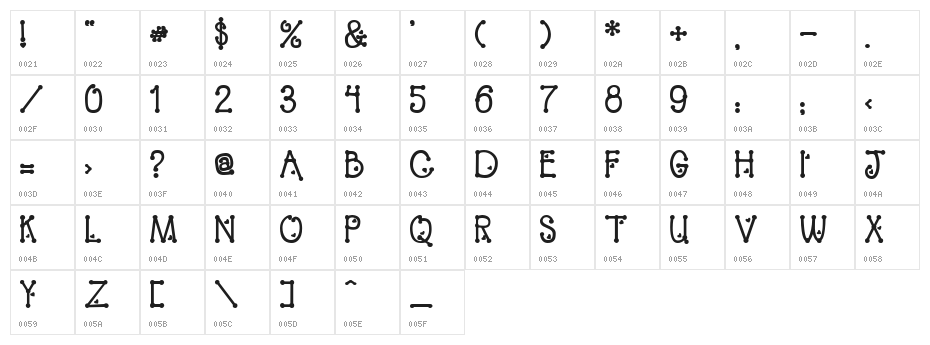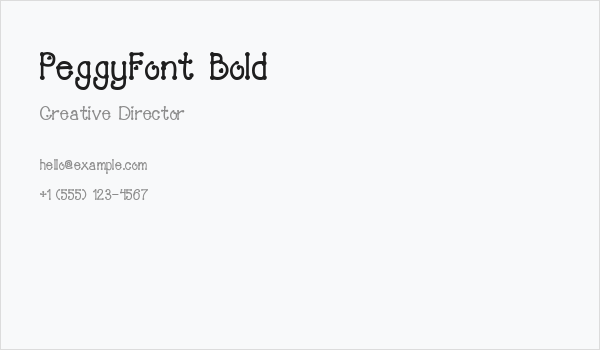
PeggyFont Bold Font
PeggyFont Bold Description
This font features a playful and whimsical design, characterized by its bold and rounded letterforms. Each character is adorned with small, circular embellishments at the ends of strokes, giving it a unique and decorative appearance. The font maintains a consistent weight throughout, ensuring readability while adding a touch of fun and creativity. Its distinctive style makes it suitable for projects that require a lively and engaging visual element. The font's design is both eye-catching and versatile, making it ideal for a variety of creative applications.